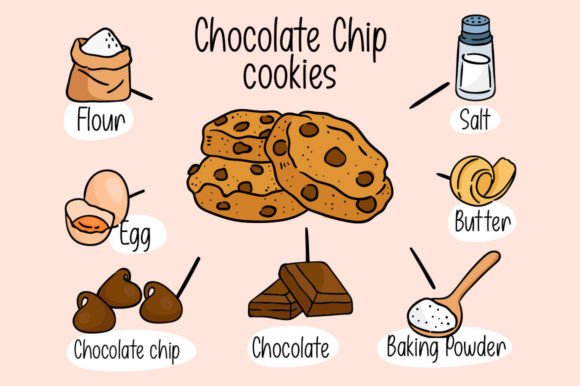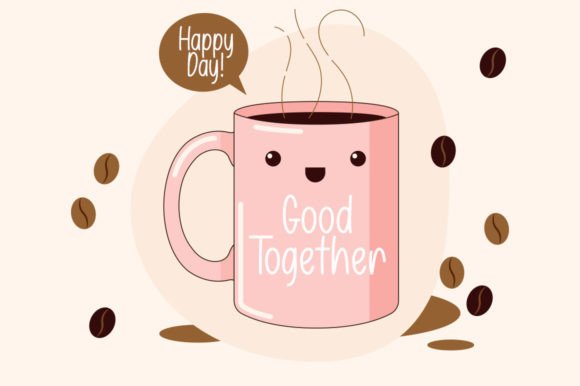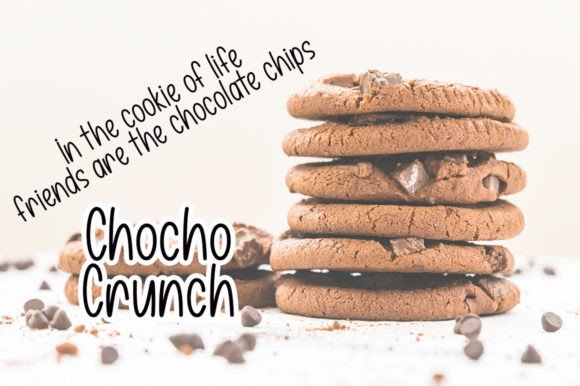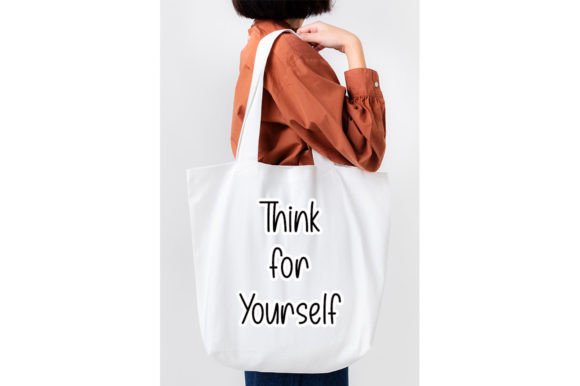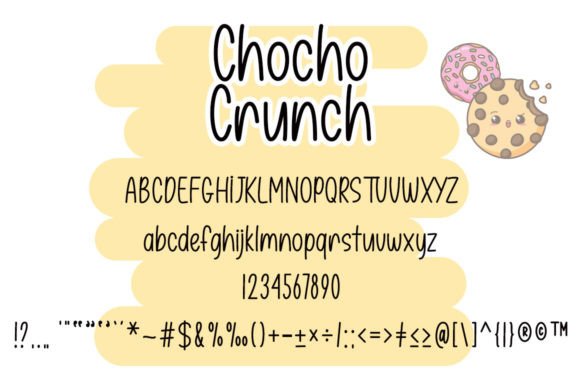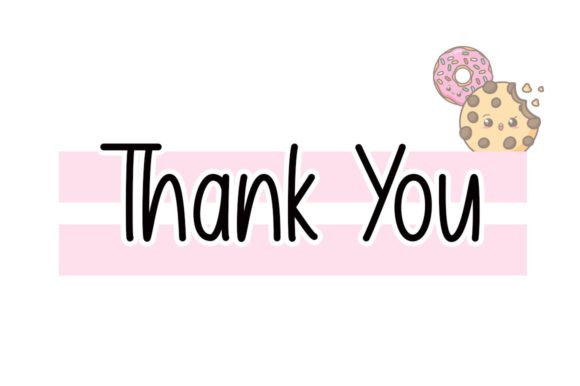
Introducing Chocho Crunch Font: The Fun and Quirky Handwritten Font to Elevate Your Designs
Are you tired of using the same old fonts in your designs? Do you want to add a touch of personality and whimsy to your creative projects? Look no further than Chocho Crunch Font! This fun and quirky handwritten font is perfect for designers and crafters who want to make their work stand out from the crowd.
What is Chocho Crunch Font?
Chocho Crunch Font is a unique and playful handwritten font that is sure to add a dash of fun to any design project. Its quirky and irregular style makes it perfect for creating eye-catching headings, titles, and text that will grab the attention of your audience. Whether you’re working on a branding project, a craft tutorial, or a social media graphic, Chocho Crunch Font is the perfect choice.
What Makes Chocho Crunch Font So Special?
So, what sets Chocho Crunch Font apart from other fonts out there? Here are just a few reasons why this font is a must-have for designers and crafters:
• Unique and Quirky Style: Chocho Crunch Font has a one-of-a-kind style that is sure to add a touch of personality to your designs. Its irregular and handwritten feel makes it perfect for creating unique and eye-catching text.
• Versatile: Despite its quirky style, Chocho Crunch Font is incredibly versatile and can be used in a wide range of design projects. From branding and advertising to crafting and DIY tutorials, this font is sure to fit in.
• Easily Readable: Despite its playful style, Chocho Crunch Font is still easy to read, making it perfect for use in both headings and body text.
How to Use Chocho Crunch Font in Your Designs
So, how can you use Chocho Crunch Font in your designs? Here are a few ideas to get you started:
• Branding and Logo Design: Use Chocho Crunch Font to create unique and eye-catching logos and branding materials that will help your business stand out.
• Crafting and DIY Tutorials: Add a touch of personality to your crafting and DIY tutorials with Chocho Crunch Font. Its quirky style is perfect for creating fun and engaging tutorials.
• Social Media Graphics: Use Chocho Crunch Font to create eye-catching social media graphics that will help your posts stand out from the crowd.
• Party and Event Invitations: Create fun and playful party and event invitations with Chocho Crunch Font. Its quirky style is sure to set the tone for a fun and memorable event.
Tips for Getting the Most Out of Chocho Crunch Font
Here are a few tips for getting the most out of Chocho Crunch Font:
• Experiment with Different Sizes and Colors: Don’t be afraid to experiment with different sizes and colors of Chocho Crunch Font. Its quirky style looks great in a variety of sizes and colors.
• Pair it with Other Fonts: Chocho Crunch Font pairs well with a variety of other fonts. Try pairing it with a clean and simple font for a fun and contrasting look.
• Use it in Combination with Images and Graphics: Chocho Crunch Font looks great when used in combination with images and graphics. Try using it to add text to a photo or illustration.
Font Name Chocho Crunch Font
Author DN Creative
In conclusion, Chocho Crunch Font is a fun and quirky handwritten font that is perfect for designers and crafters who want to add a touch of personality to their designs. Its unique and irregular style makes it perfect for creating eye-catching headings, titles, and text that will grab the attention of your audience. With its versatility, readability, and instant download, Chocho Crunch Font is a must-have for any designer or crafter looking to elevate their work.